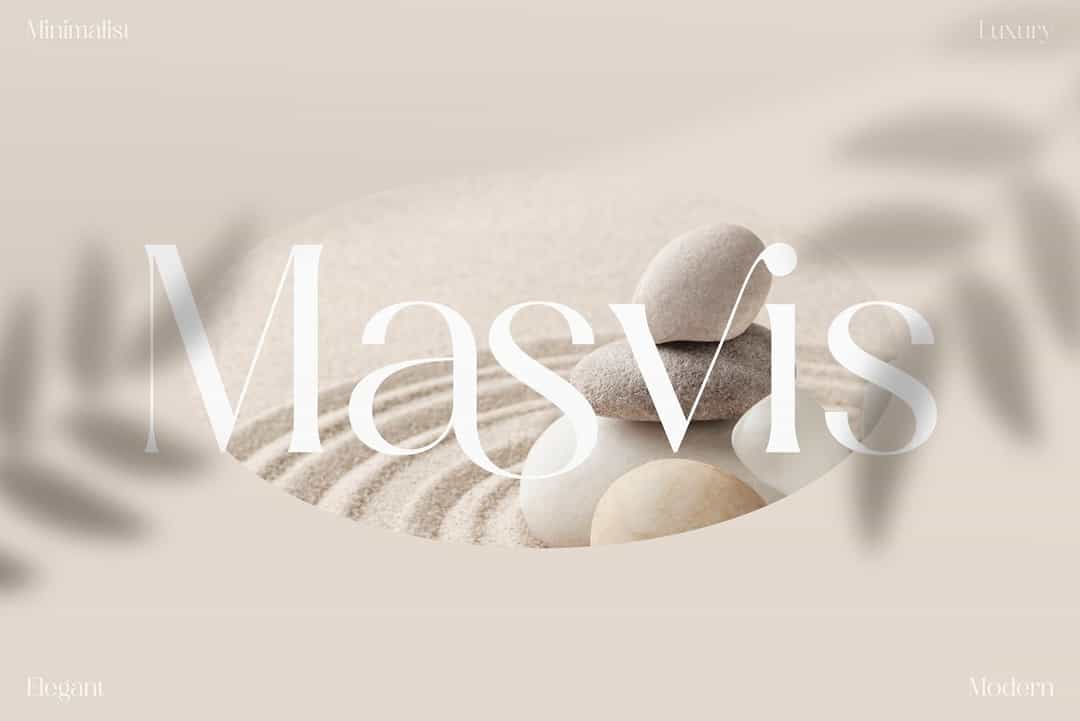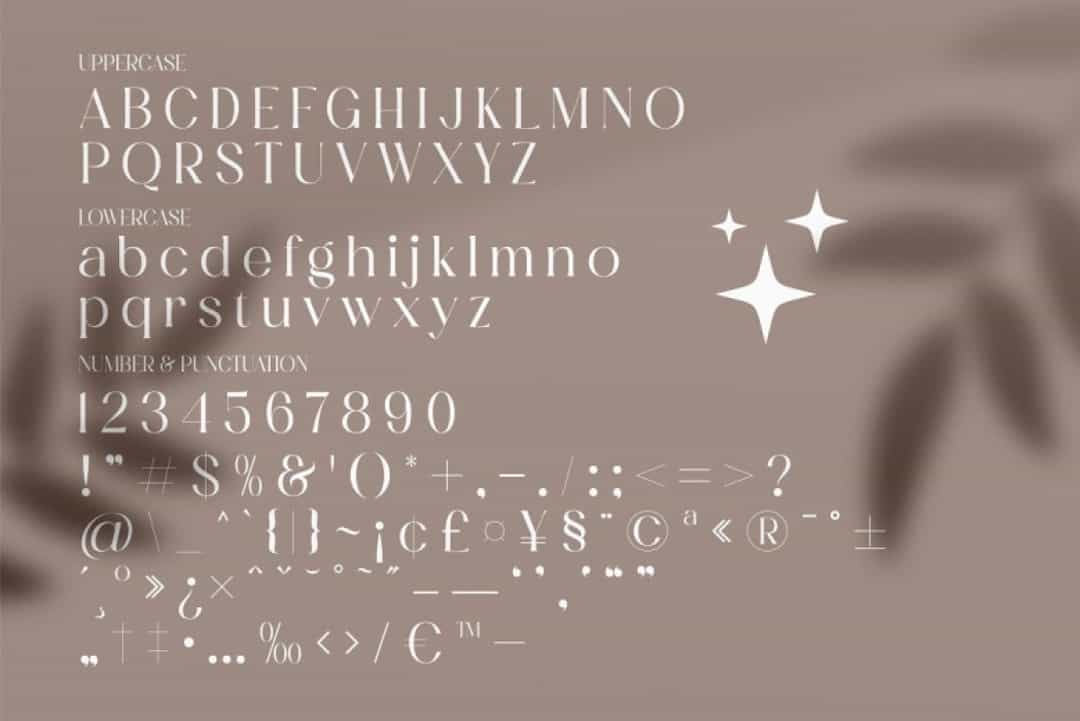
Masvis Typeface by Storytype is an elegant modern serif and classic typeface designed with its distinct style and modern appeal, ideal for creating classy logos, movie or book titles designs, fashion brand clothing designs, magazine articles letters and quotes, among many other uses.